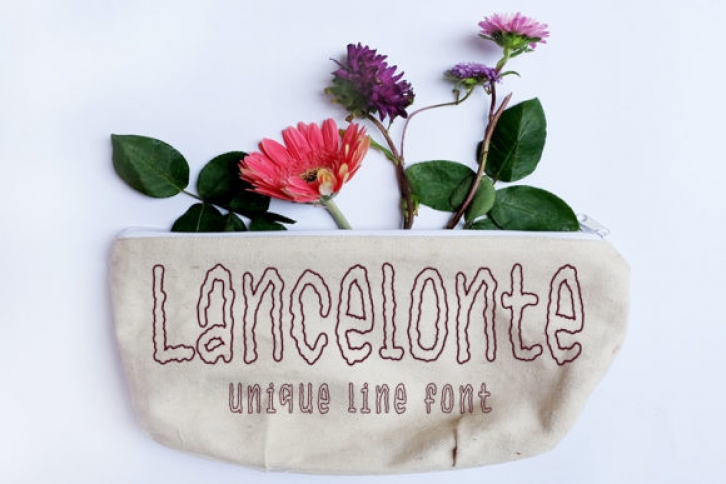
Lancelonte is a tall and unique display font, described by an elegant touch, perfect for your favorite projects. Fall in love with its incredibly versatile style and use it to create spectacular designs!